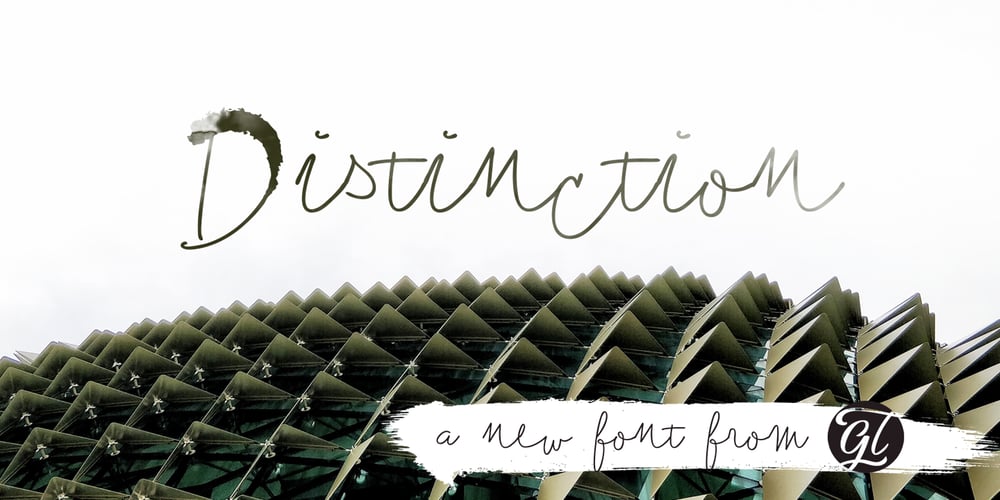
Distinction Font Family was designed by Dathan Boardman and published by Great Lakes Lettering. Distinction contains 1 styles and family package options. Distinction Is a brand new font from Great Lakes Lettering. A high contrast brush script with a ton of usefulness. Make you mark with Distinction.